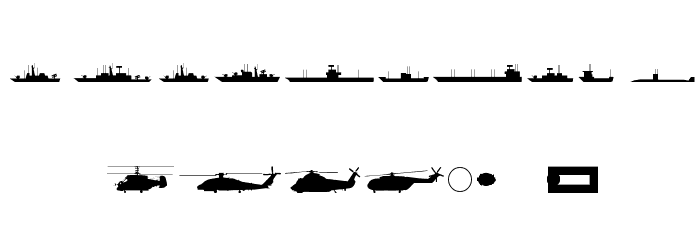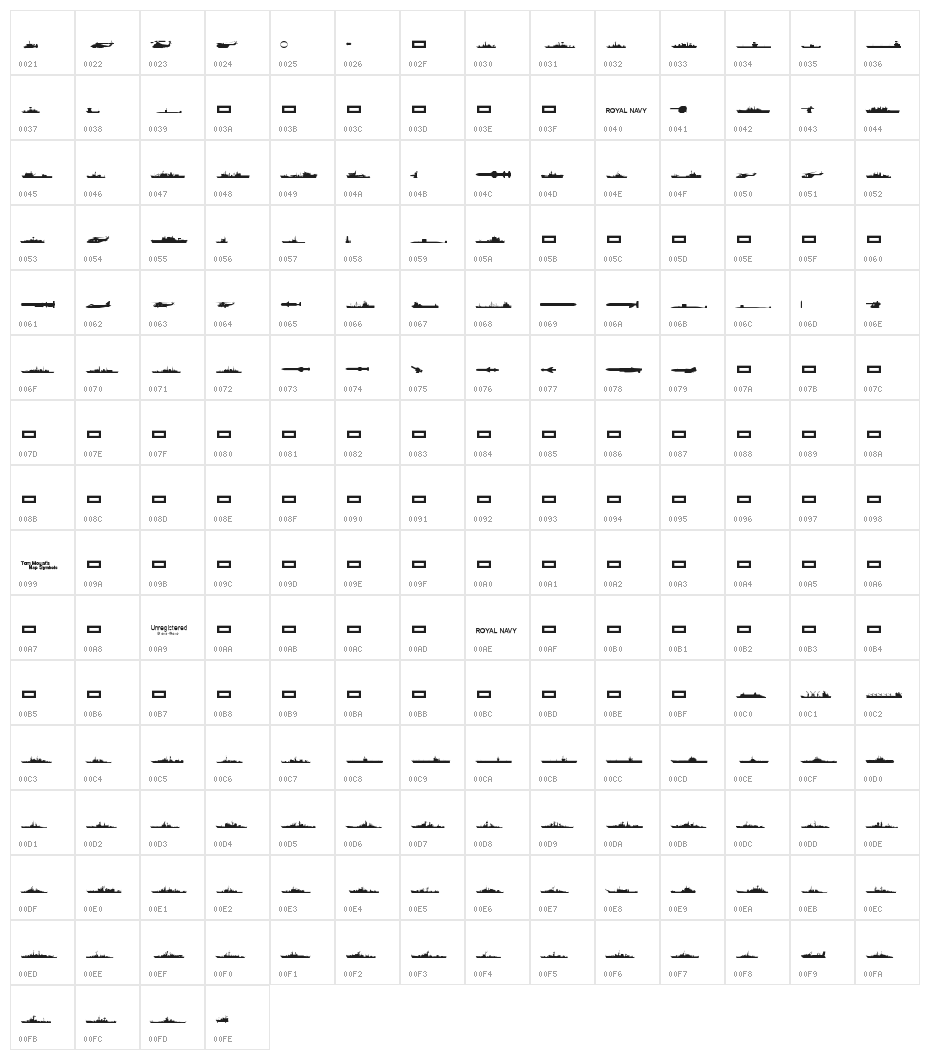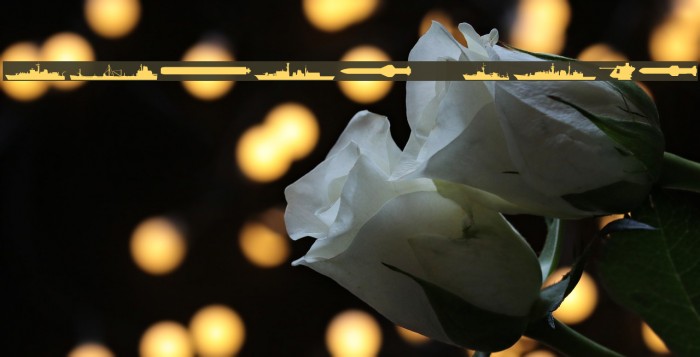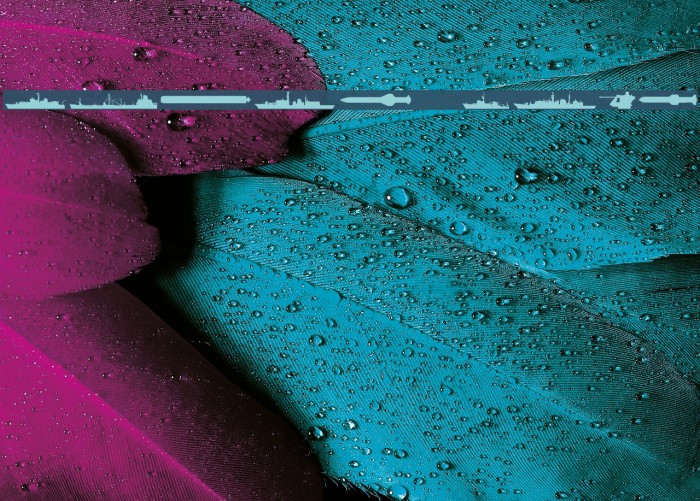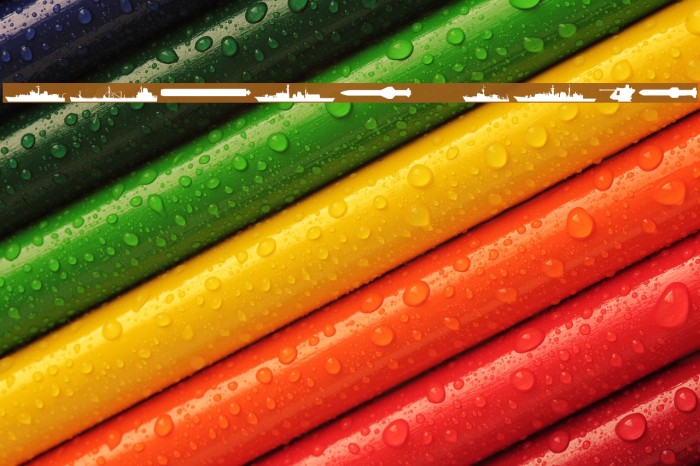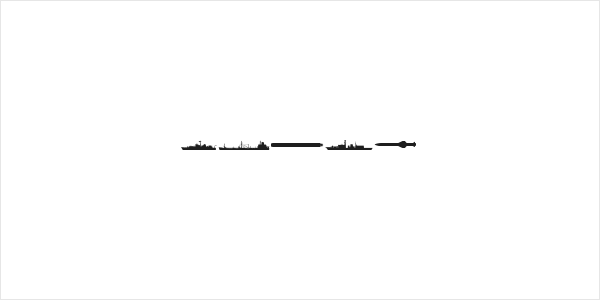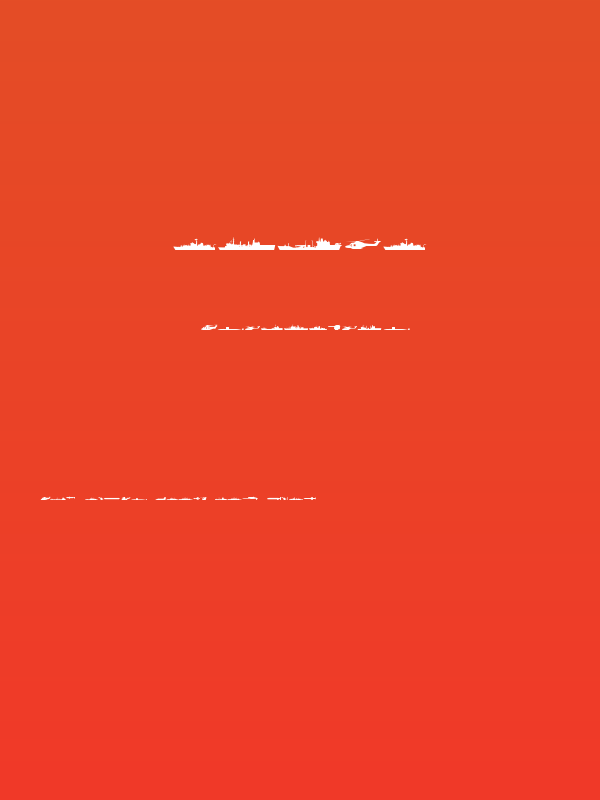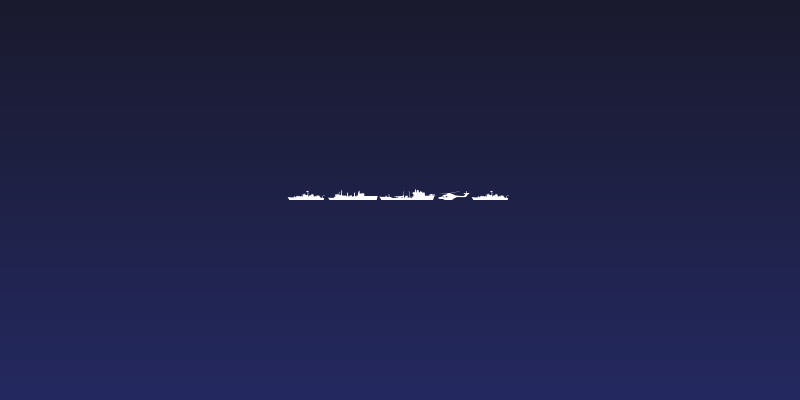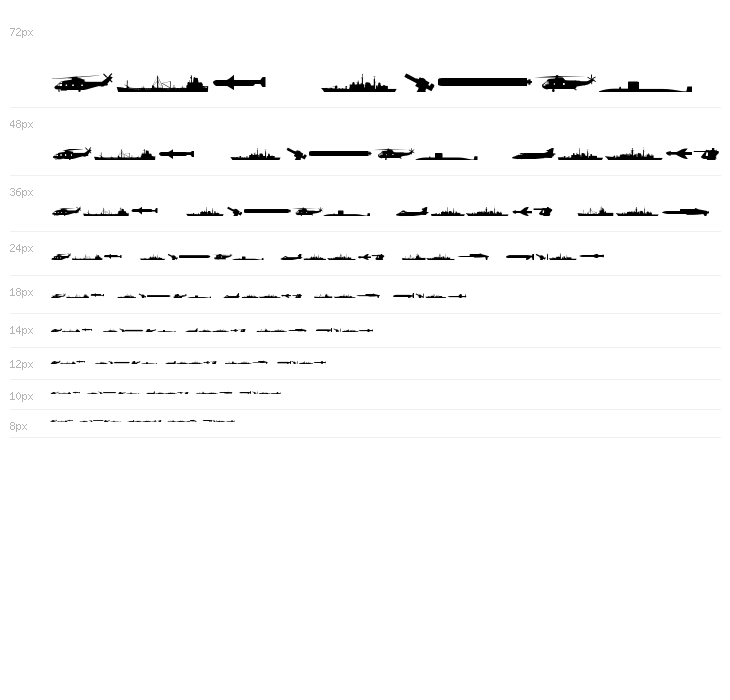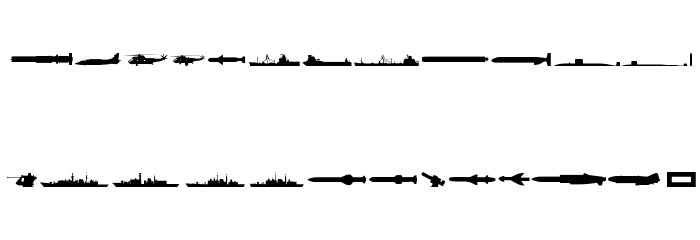
Ships Font
Ships Description
A collection of solid black silhouettes depicting various ships, submarines, helicopters, and military vehicles, each rendered in a uniform, high-contrast style with simple, blocky outlines and no interior detail.
| Overall Style | Decorative, Technical, Modern |
| Use Case | Icons, Infographics, Educational materials, Game assets |
| Proposed Projects | Military infographics, educational posters, naval strategy games, icon sets, technical manuals. |